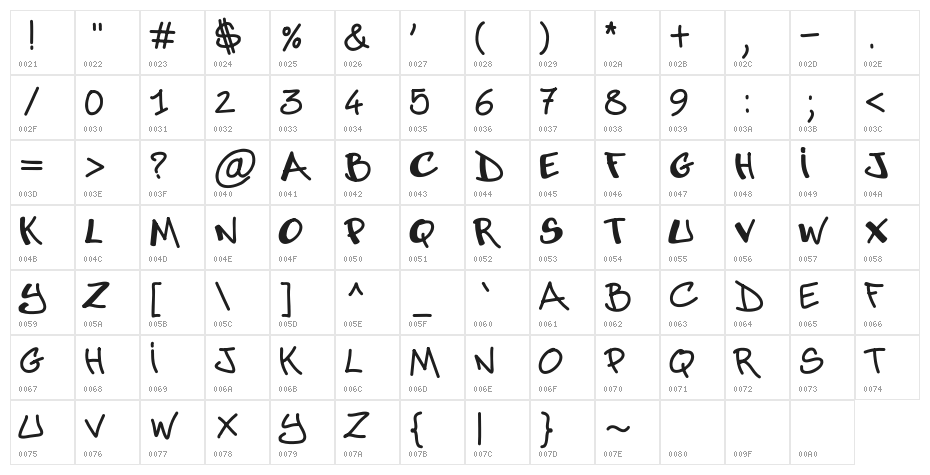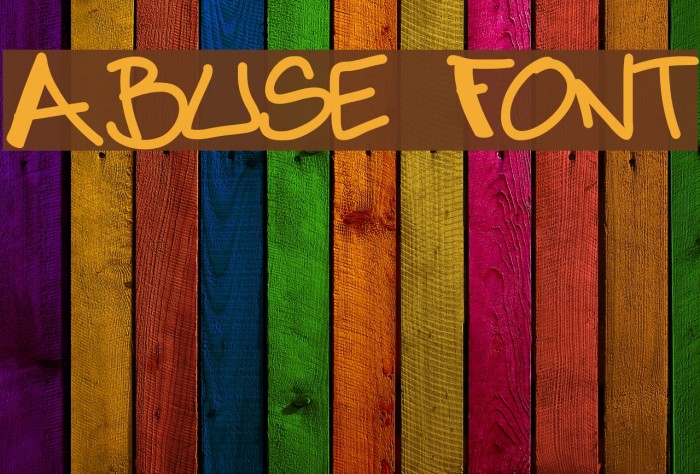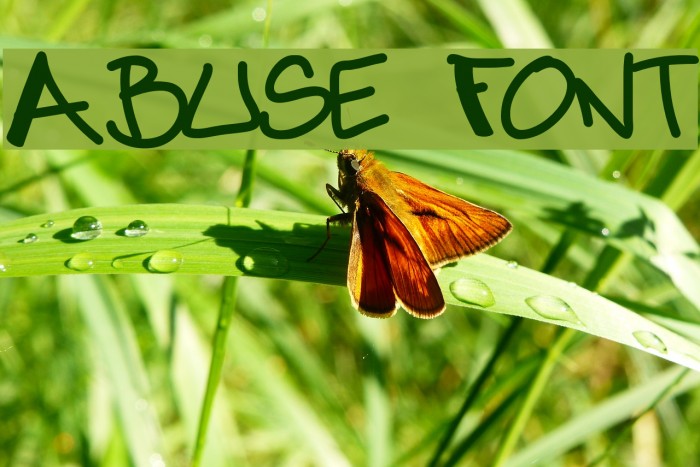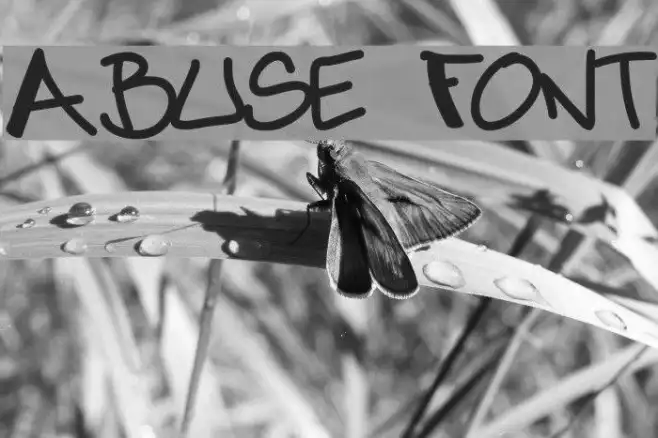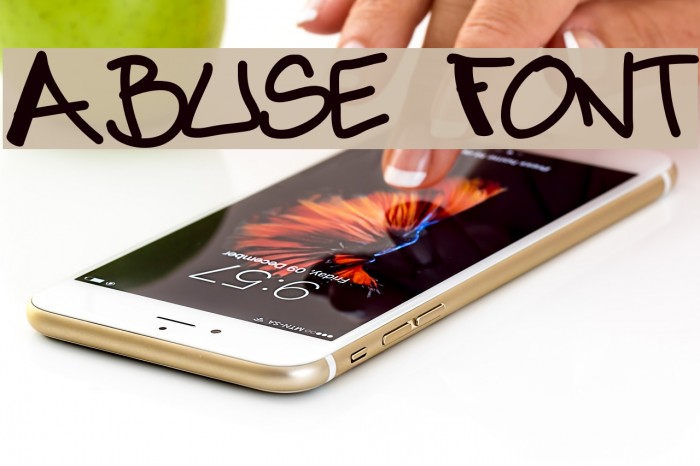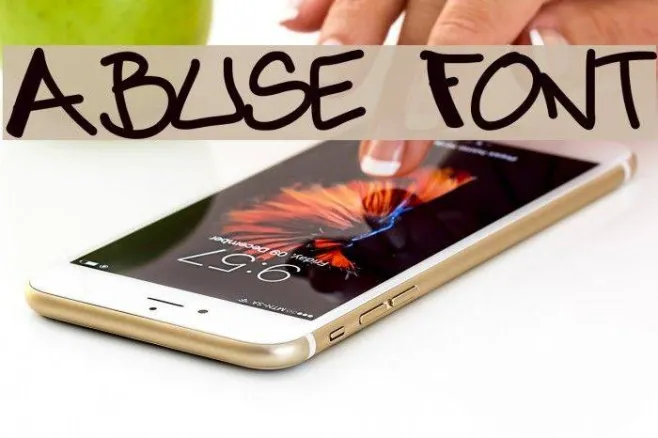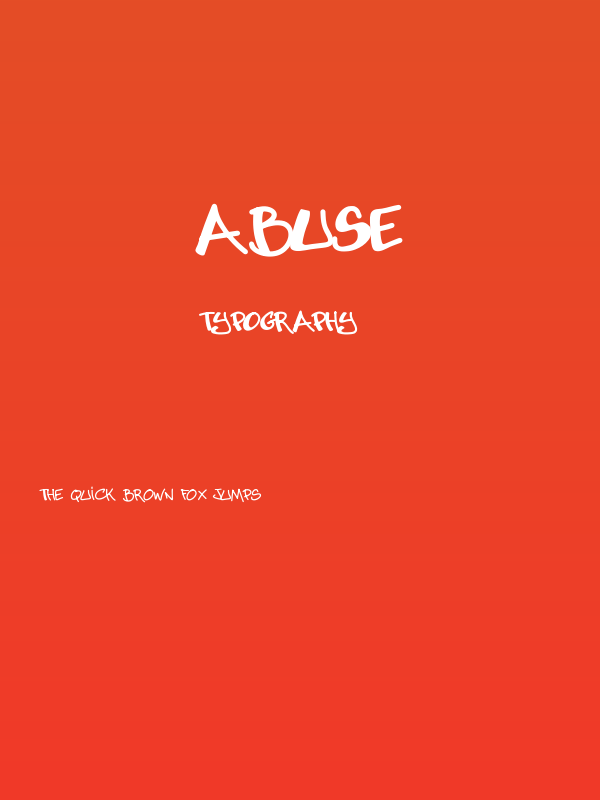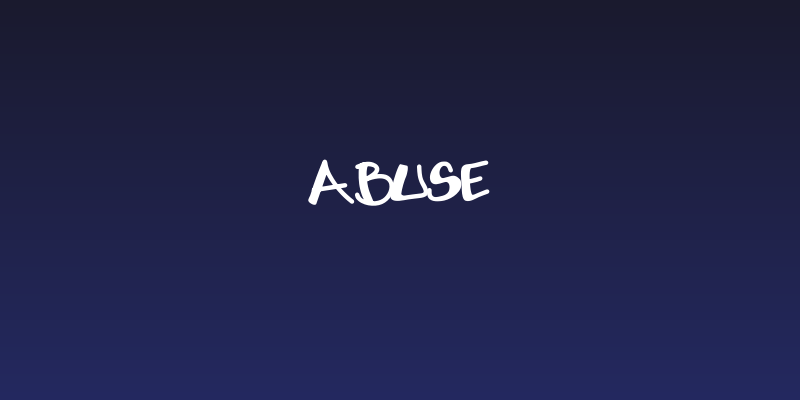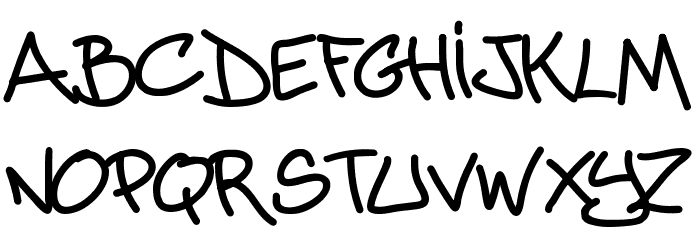
Abuse Font
Abuse Description
This font exudes a playful and energetic vibe, characterized by its bold and slightly irregular strokes that mimic a hand-drawn style. The uppercase and lowercase letters maintain a consistent flow, with rounded edges and a casual appearance. The numbers and special characters follow the same lively aesthetic, making the font suitable for projects that require a personal touch. Its informal style suggests a sense of spontaneity and creativity, ideal for designs that aim to capture attention with a fun and approachable look.
ABUSE UPPERCASE
ABUSE LOWERCASE
ABUSE OTHER CHARS
| Proposed Projects | Ideal for children's books, comic strips, playful branding, and casual event invitations. |